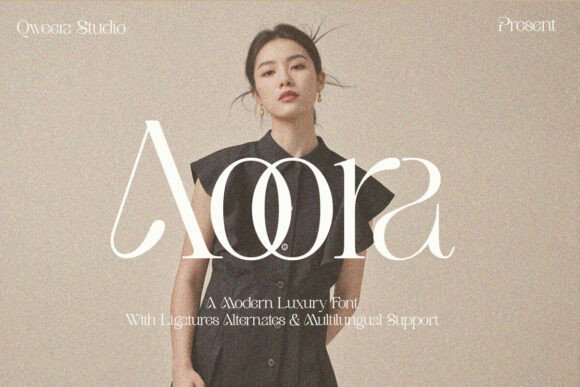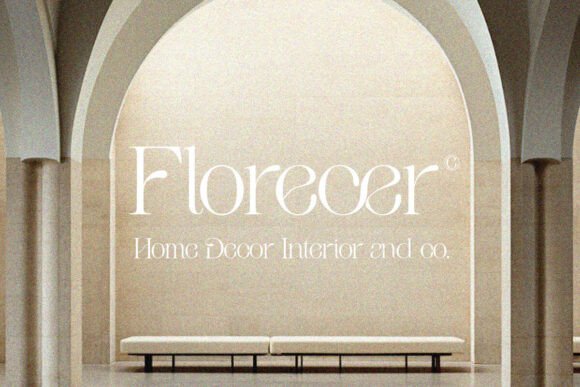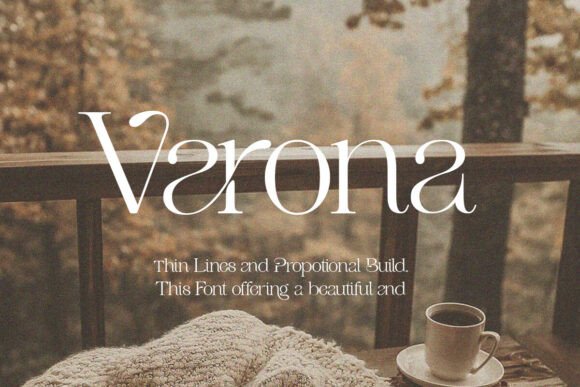
Aoora Font: Modern Serif Typography for Elegant Branding & Logo Design
About the Aoora Font
We are excited to introduce Aoora Font, a must-have typeface for any serious designer. Aoora is more than just a font—it’s a masterpiece of modern luxury serif design, crafted to elevate your projects with sophistication and style. With its clean lines, exquisite details, and versatile functionality, Aoora is the perfect choice for high-end branding, editorial design, and luxury packaging. Whether you’re creating a sleek logo or a polished editorial layout, this font ensures your work radiates timeless elegance and contemporary flair.
Aoora stands out with its refined alternates and ligatures, offering endless creative possibilities. Its versatility makes it ideal for projects that demand a touch of luxury and individuality, from corporate branding to editorial masterpieces. This font isn’t just a tool—it’s a statement of modern elegance and design excellence.
Aoora Font Usage Examples